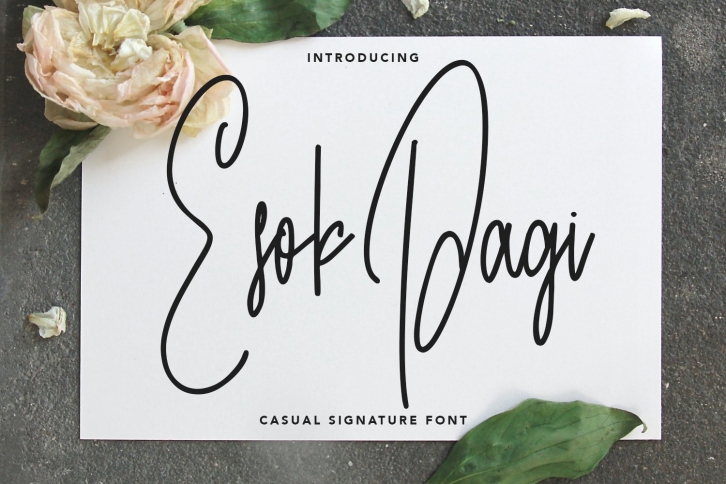
Esok Pagi Casual Signature Font Download
Esok Pagi Casual Signature is a gorgeous font that was realeased on October 20, 2020. The font can be used in many style contexts and design environments. Perfect for invitations, magazines, websites, logos, and more! It was designed by Maulana Creative and the file size is 15.64 MB. Thanks for checking out this font!